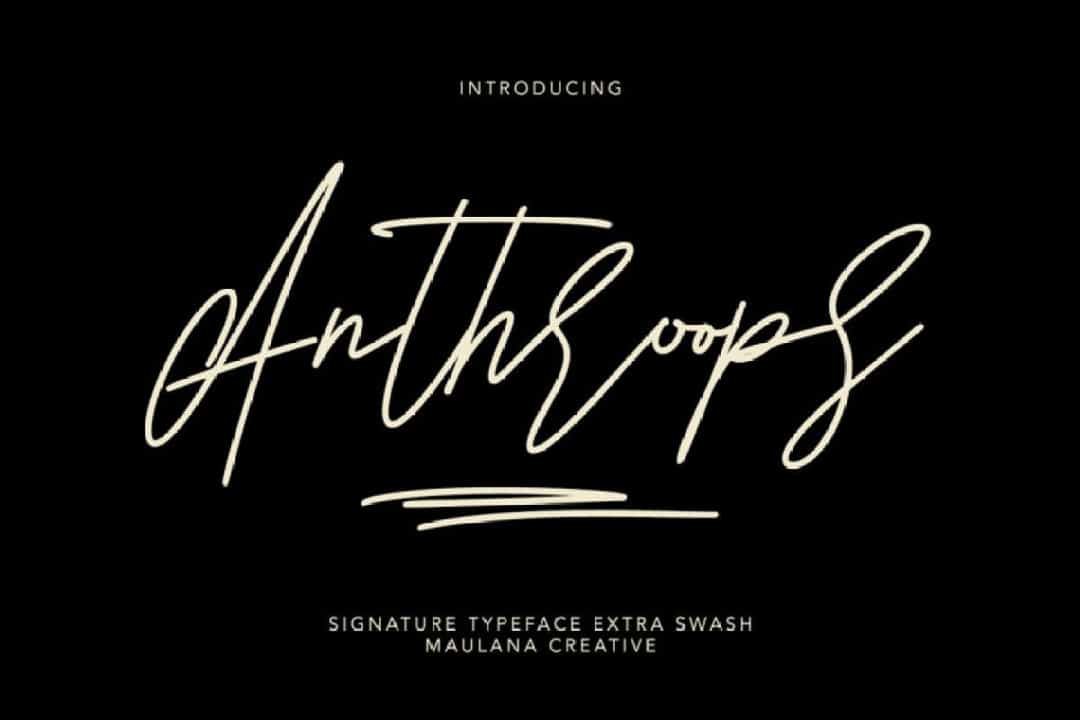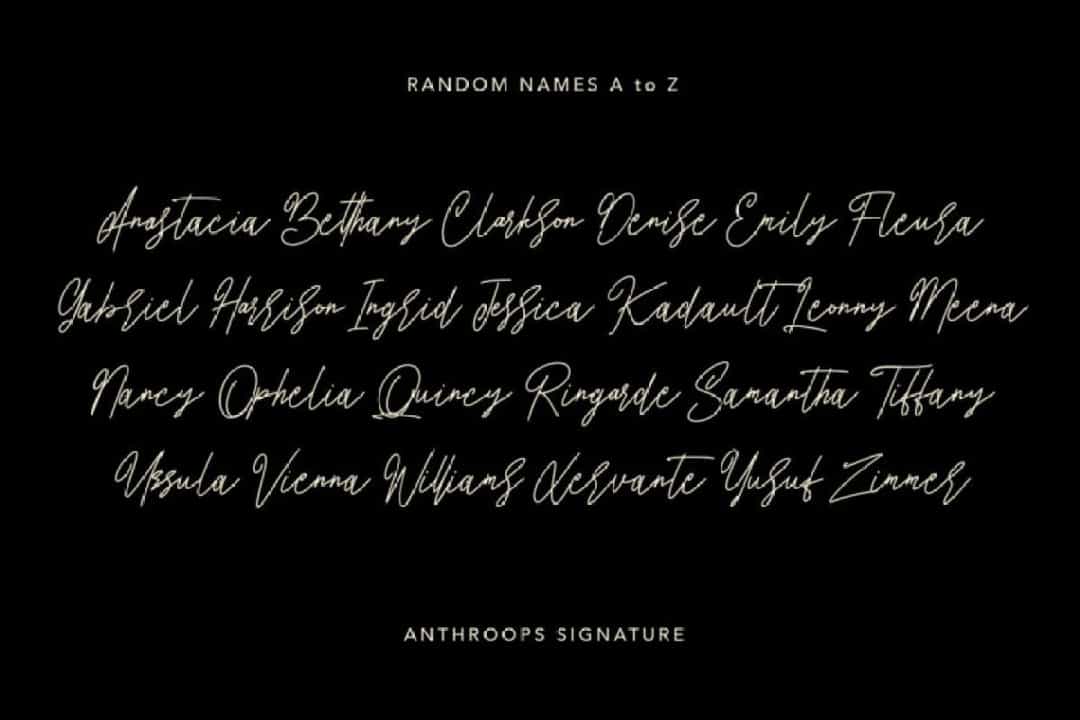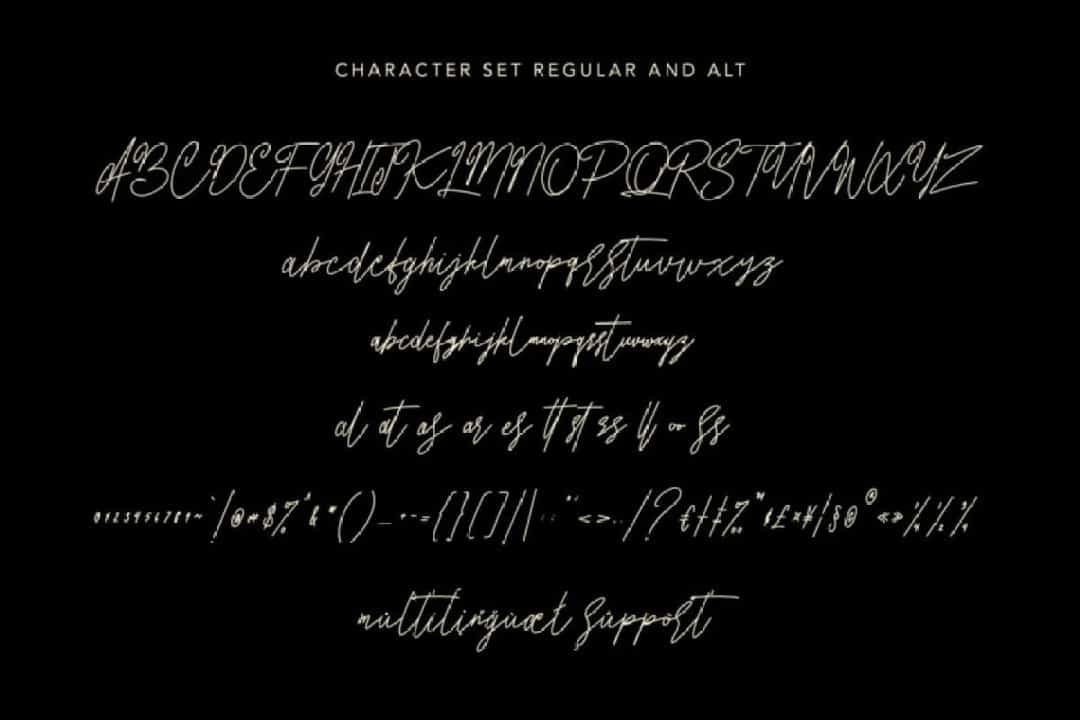
Discover Anthroops Font, part of the Handwritten Script Personal collection—a versatile and unique font perfect for adding a personal touch to your projects. Download it for free and enjoy crafting designs with style, from invitations to social media posts. This font is available exclusively for personal use, giving you the freedom to create without limits. Unlock your creativity with Anthroops Font today!
The Anthroops Typeface Signature Extra Swash is ideal for your designs as it will give your work that hand-made touch. It will look great on stationery, signatures, logos, typography quotes, book or magazine covers and headers for apparel branding packaging design websites and more.